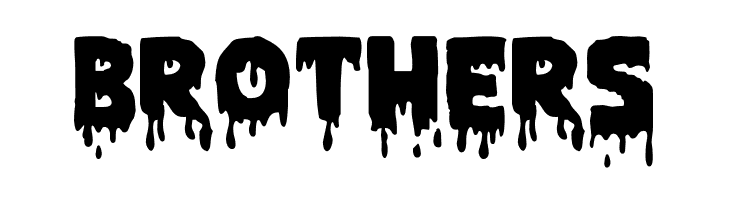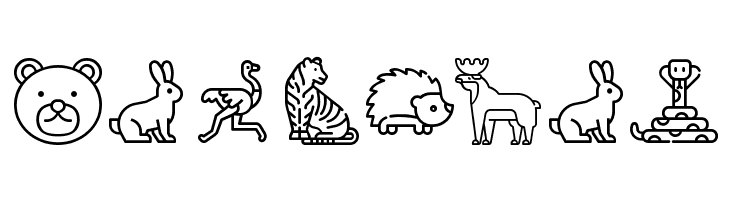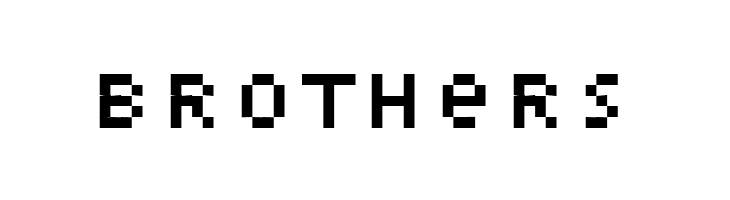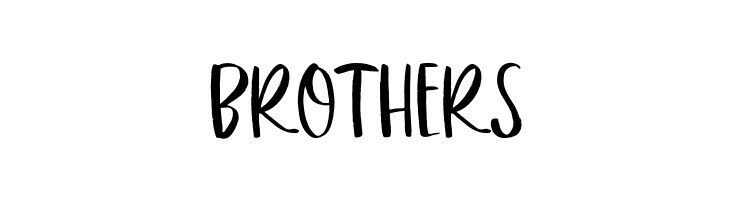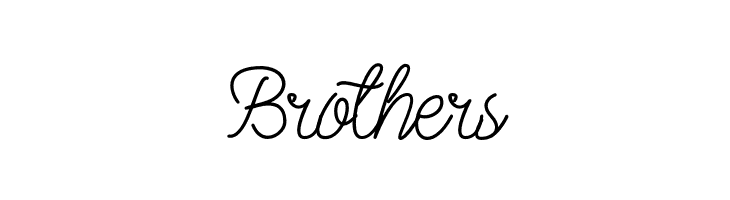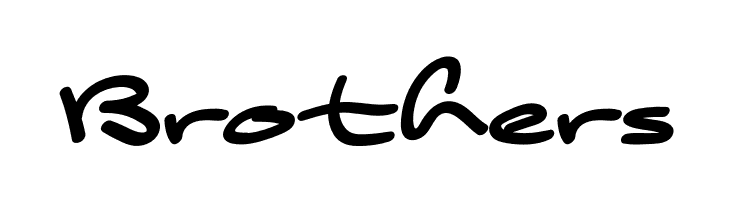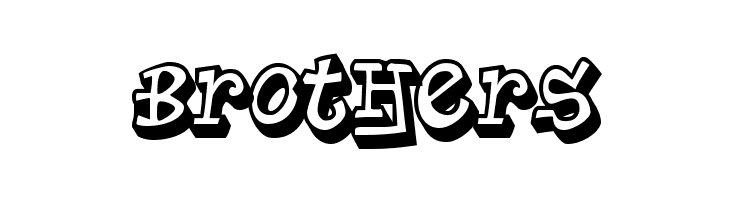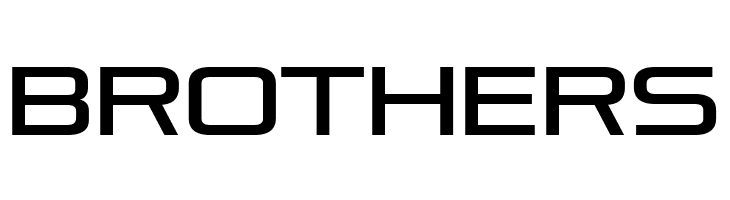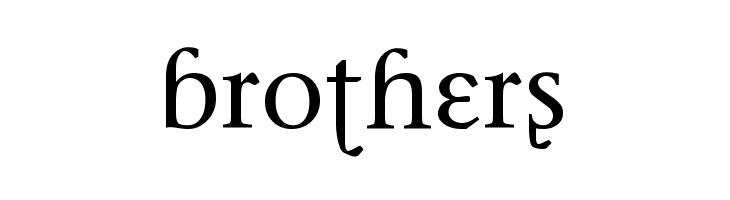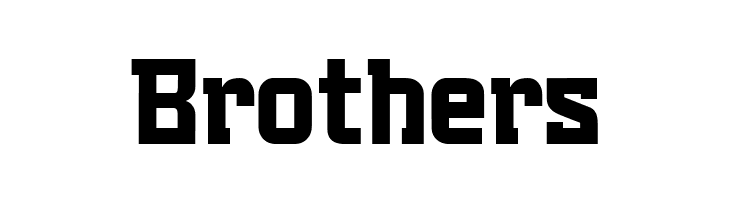
A cursive, handwritten font with elegant, flowing lines.
A bold, handwritten-style font with a casual, marker-like appearance.
A pixelated, retro-style font with a digital, grid-like appearance.
A playful, energetic handwritten font with fluid strokes and a casual style.
A bold, playful font with dynamic curves and strong visual impact.
A sophisticated serif font with elegant curves and distinct serifs.
Outlined, cartoon-style icon font with animals and educational symbols.
An elegant script font with intricate swashes and high contrast, perfect for luxurious and formal designs.
A bold, dripping font with a melting effect, ideal for horror themes.
A bold, decorative typeface with intricate flourishes and sharp angles.
A playful, bold font with a rounded, pillow-like design.
A playful, hand-drawn font with a bold, cartoonish style.
A playful, bold handwritten font with a casual and friendly style.
A bold, energetic handwritten font with expressive strokes and a lively appearance.
A bold, energetic handwritten font with fluid strokes.
A futuristic, geometric font with clean lines and angular shapes.
A pixelated, retro-style font with a blocky, digital appearance.
A playful and whimsical font with high contrast and decorative elements.
A tall, narrow, hand-drawn font with a whimsical and artistic style.
A modern, geometric font with bold, slightly condensed characters and medium contrast.
A bold, graffiti-inspired font with a playful and dynamic style.